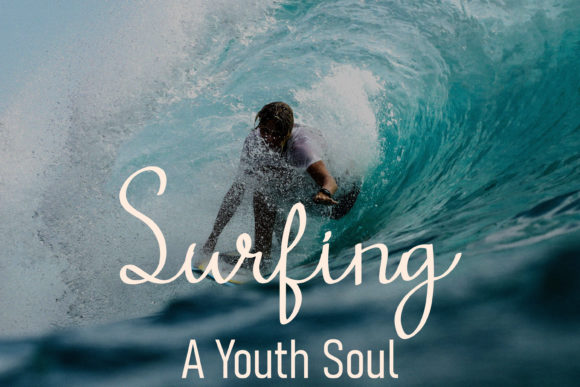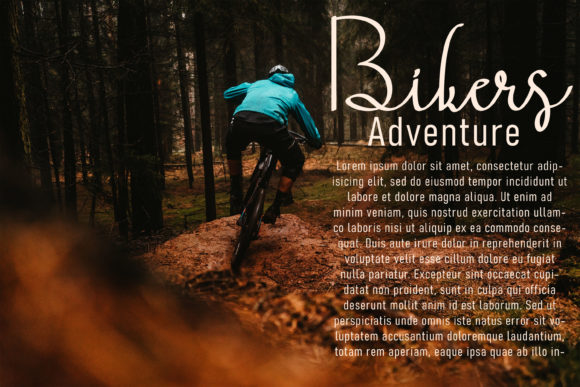
Antaricksa Font
db-ku.com - Script & Handwritten -- Antaricksa is a handwritten font with unique glyphs characters. It’s perfect for logo branding, product designs, quotes, posters, displays, websites, invitation cards, greeting cards, headlines, websites, magazines, and your various other design projects with an outstanding style.